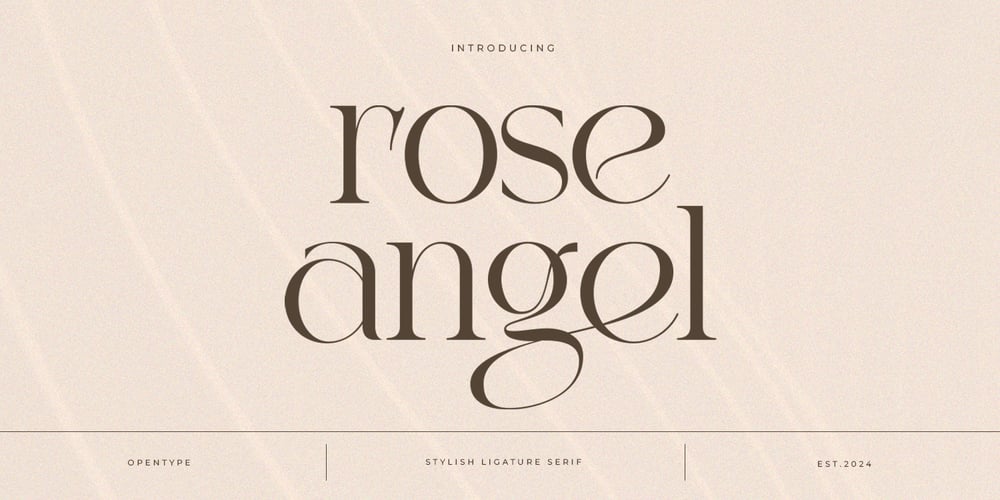
Rose Angel Modern Serif Font Family was designed by Arif Rijal, Yusilo Oktaprima Ardani and published by Taboja Studio. Rose Angel Modern Serif contains 1 styles and family package options. Rose Angel stylish ligature Serif font that exudes elegance and beauty with a perfect blend of bold and thin strokes, enhanced by stylish ligatures. Each character is a testament to the seamless harmony of thickness and slenderness.The lines of Rose Angel are designed to evoke sophistication, with serifs conveying a sense of firmness and stability. The contrast between thick and thin elements creates an appealing visual dynamic, reinforcing the beauty and luxury of each individual character.Its meticulous design, exquisite swash alternates, and diverse ligatures make it the perfect companion for a wide range of creative projects, ensuring your work radiates sophistication and charm.Rose Angel Serif Font Features: Regular Uppercase And Lowercase Alternates And Ligatures Numerals & Punctuation Accented characters Multilingual Support Unicode PUA Encoded We highly recommend using a program that supports OpenType features and Glyphs panels such as Adobe Illustrator, Adobe Photoshop CC, Adobe Indesign, or CorelDraw, so you can see and access all Glyph variations.While using this product, if you encounter any problem or spot something we may have missed, please don’t hesitate to drop us a message. We’d love to hear your feedbacks in order to further fine-tune our products.Stay creative and have a wonderful day.